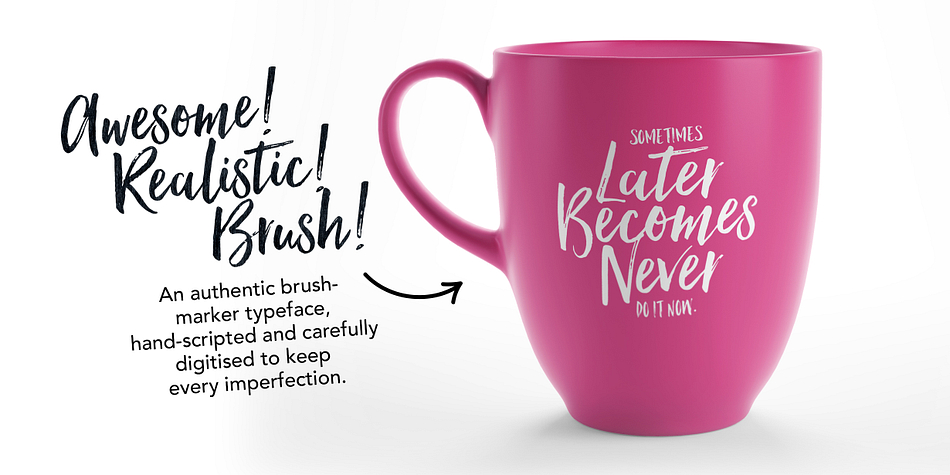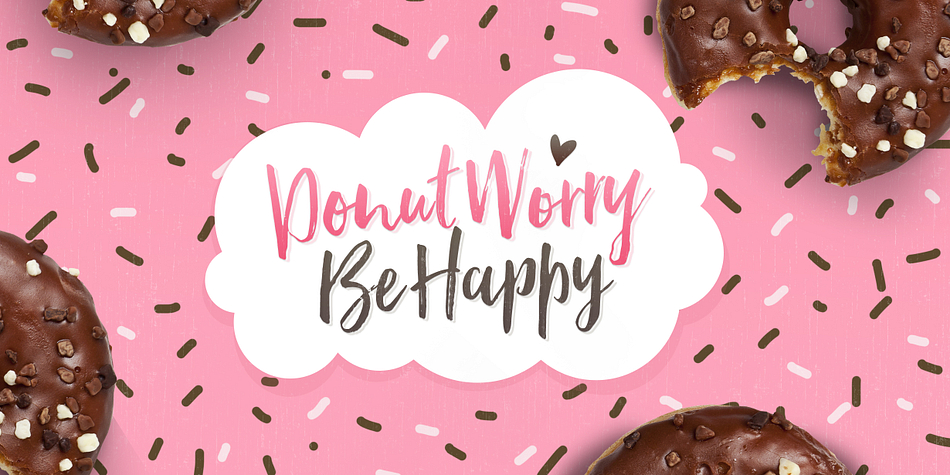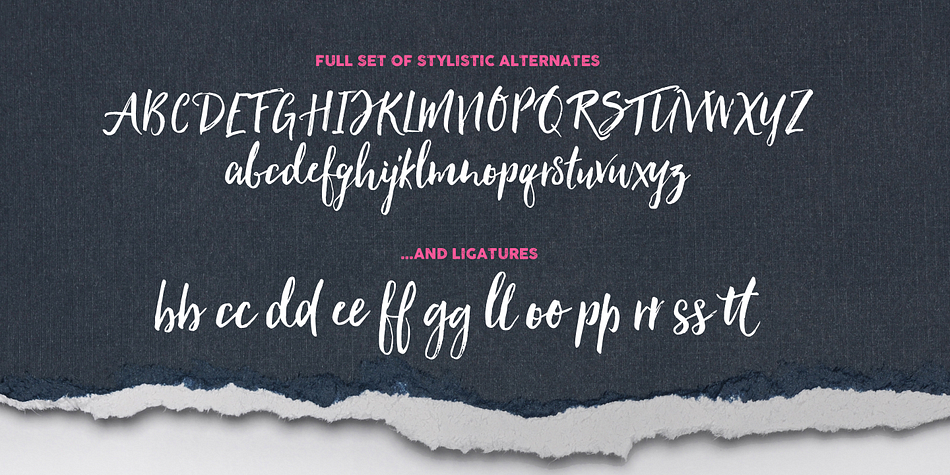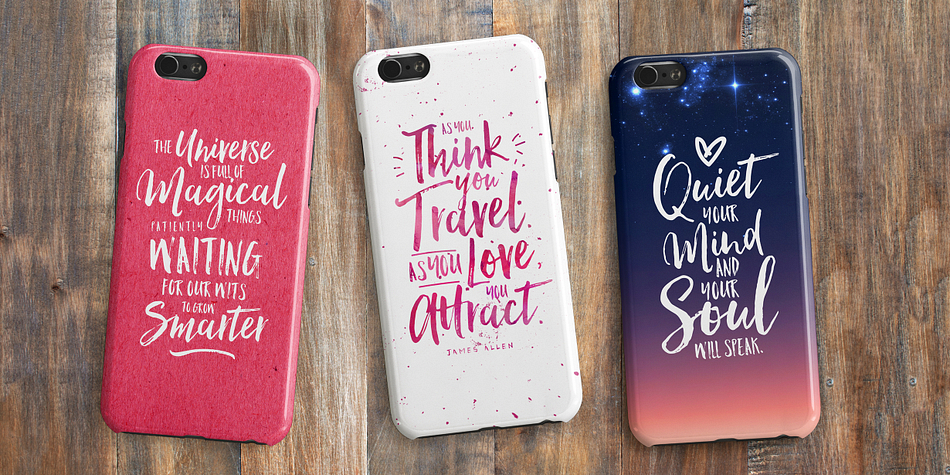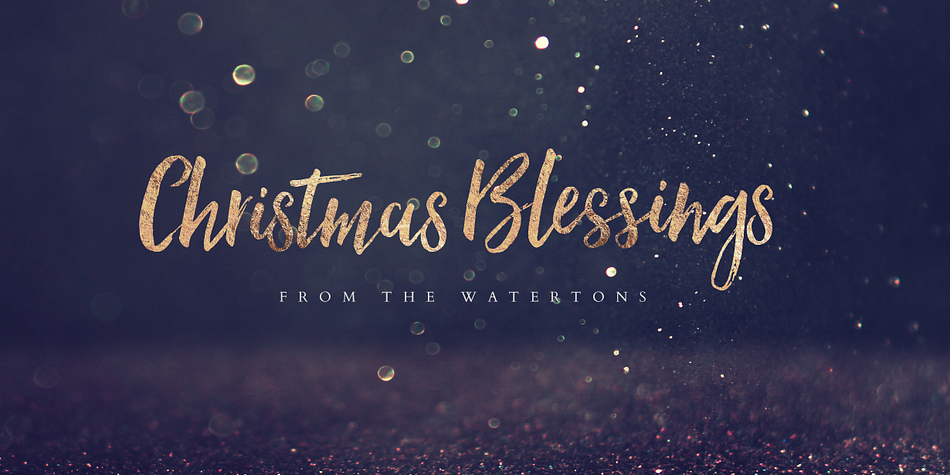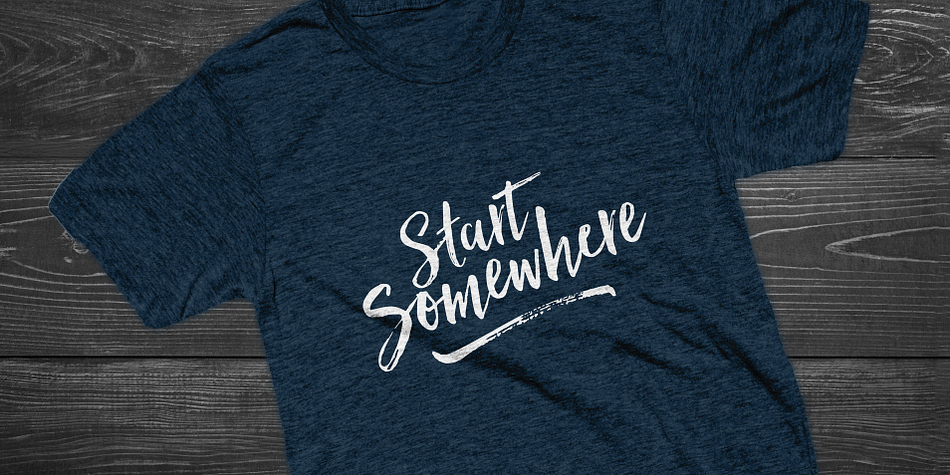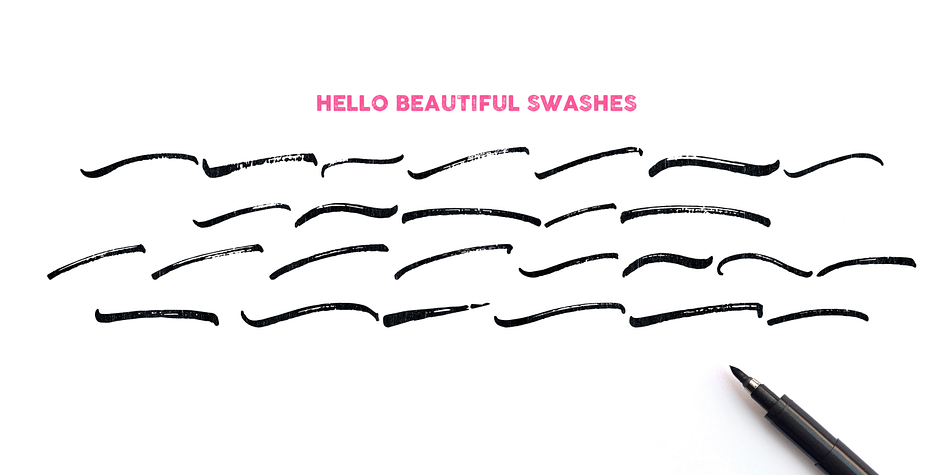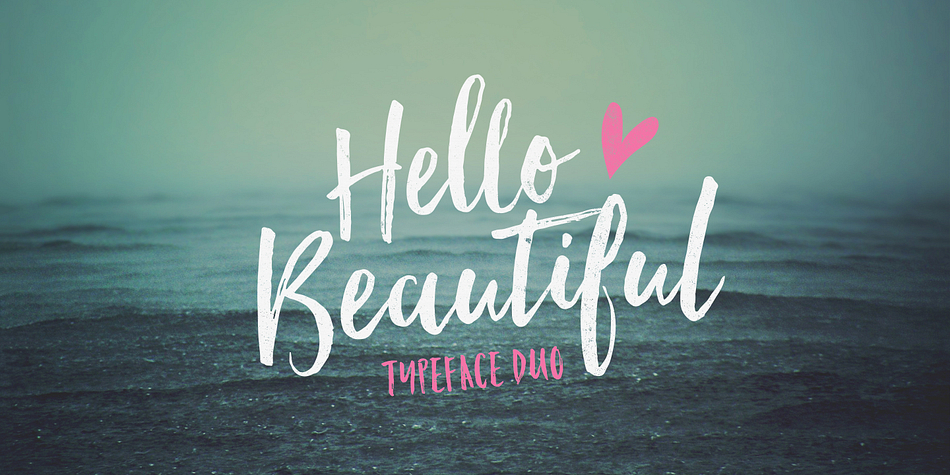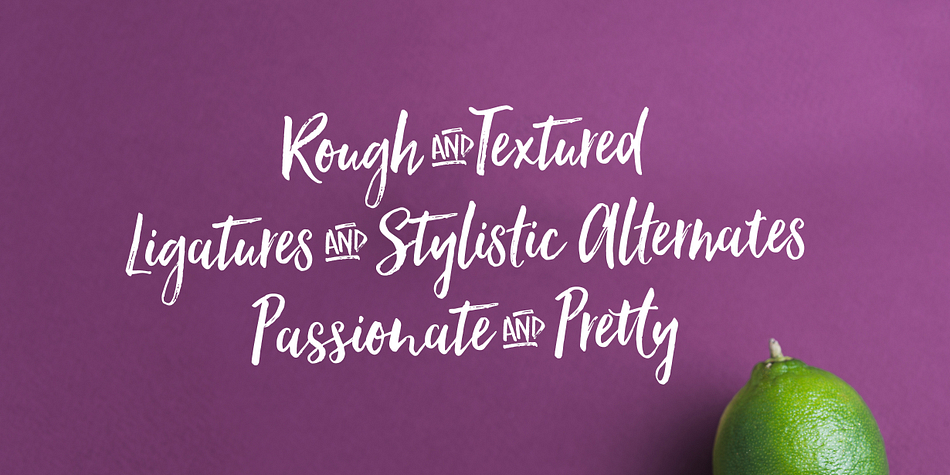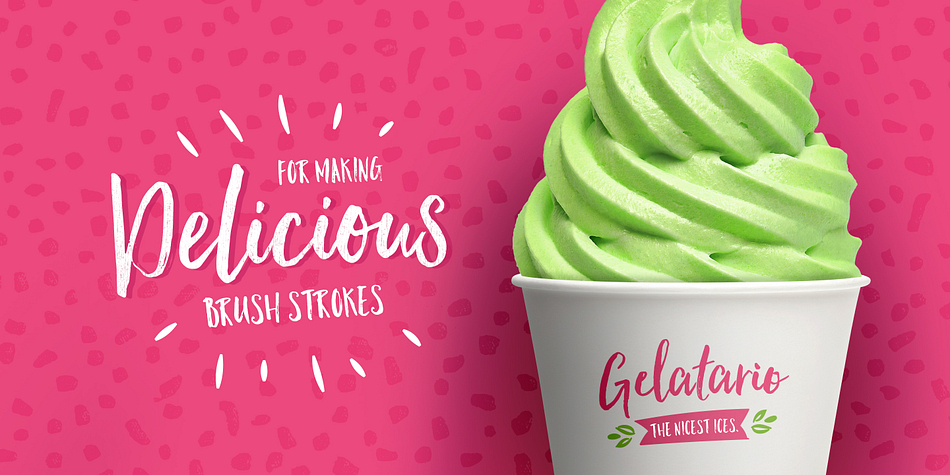
Designed by Nicky Laatz, Hello Beautiful is a dingbat, hand drawn and modern calligraphy font family. This typeface has three styles and was published by Nicky Laatz.
The Hello Beautiful Font Trio is a pretty textured brush font set with a rough and casual hand-written feel.
“Hello Beautiful” includes Stylistic Alternates and Automatic Ligatures to add to the organic nature of the script. The “Hello Beautiful Marker” is a complimentary uppercase-only font with a matching rough textured feel. “Hello Beautiful Swashes” font, has a handy set of brushed swashes to add punch and authenticity to your designs.